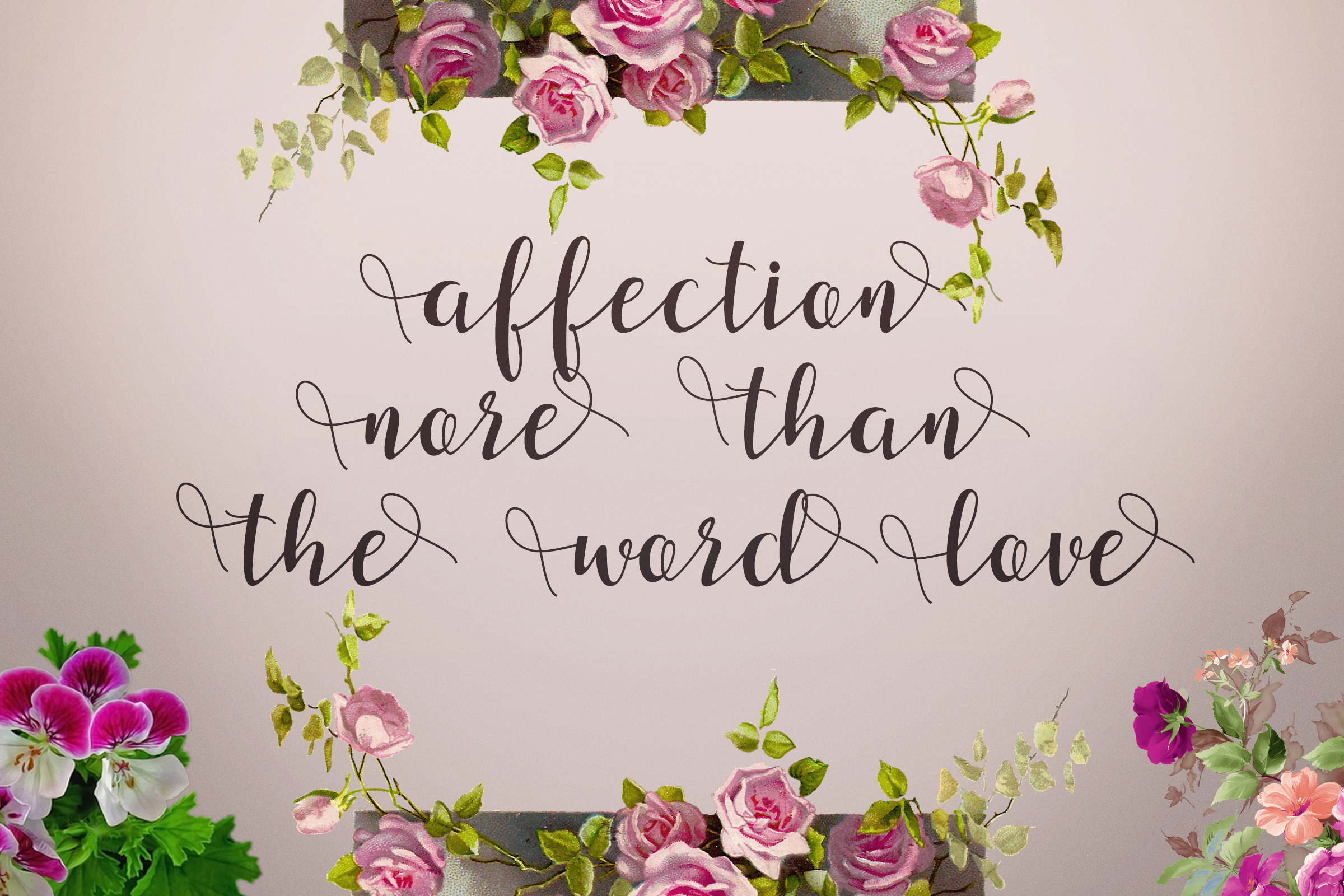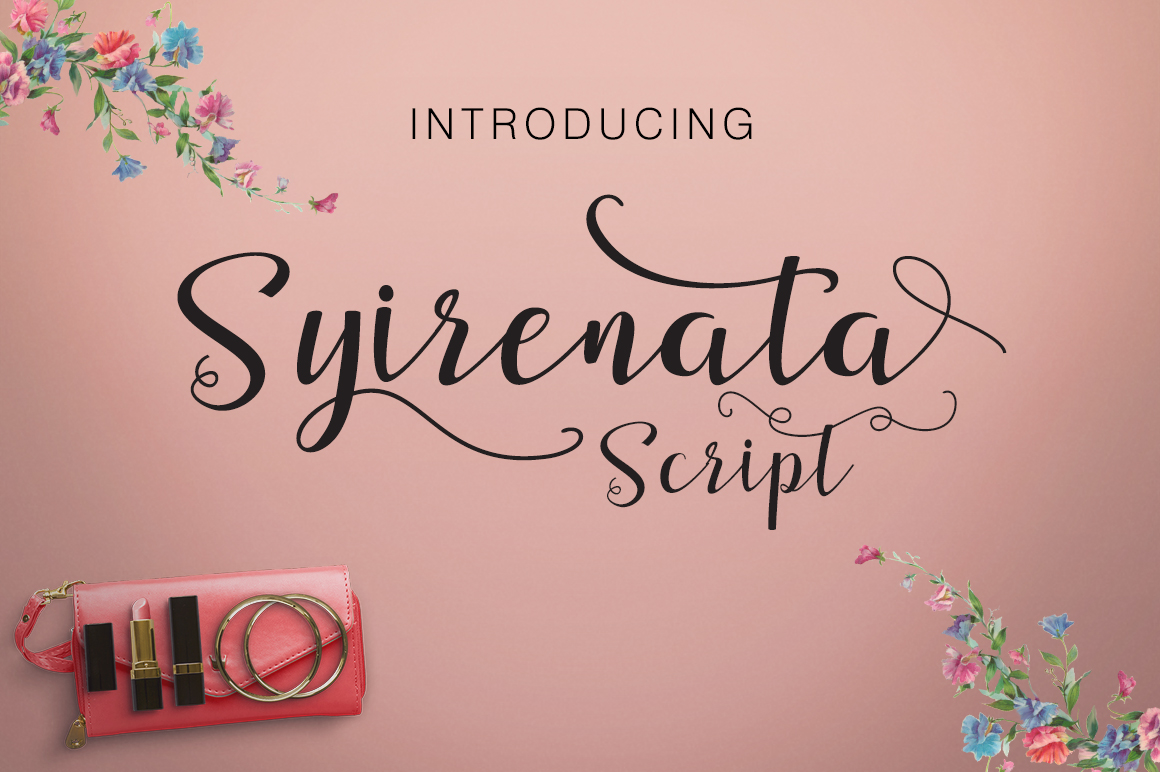
Syirenata Script Font
Syirenata Script is a modern script typeface with beautiful romantic swirls. This FREE font is perfect for your art, craft and design work.